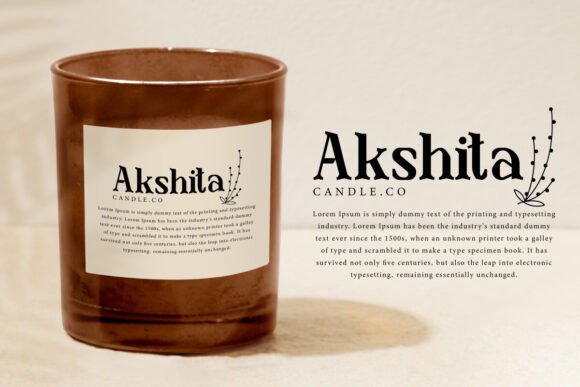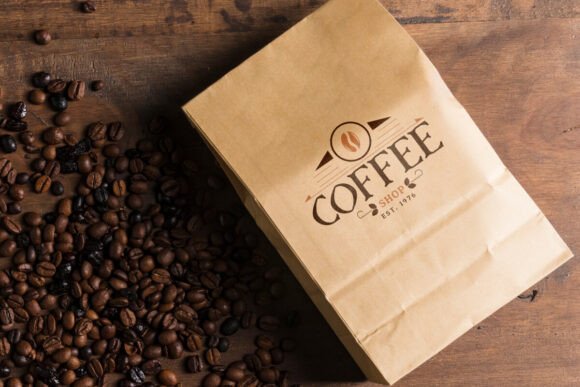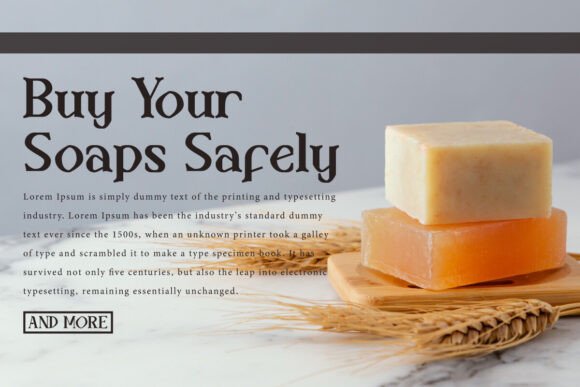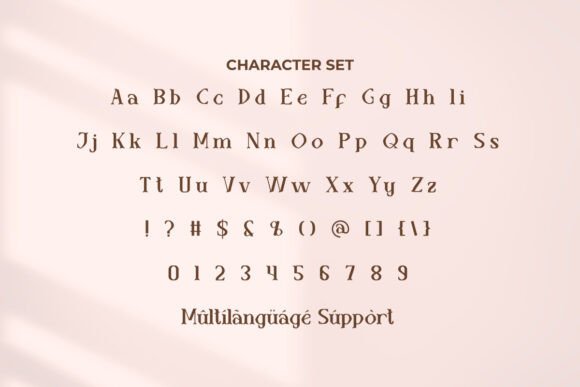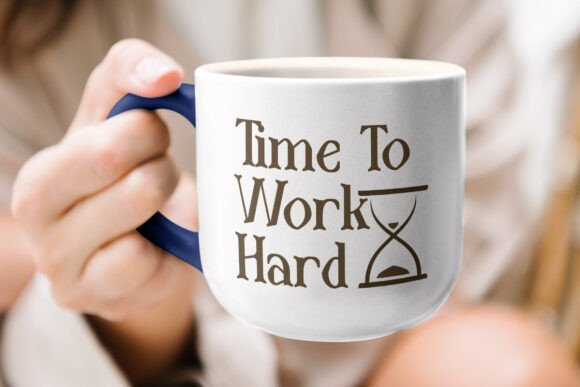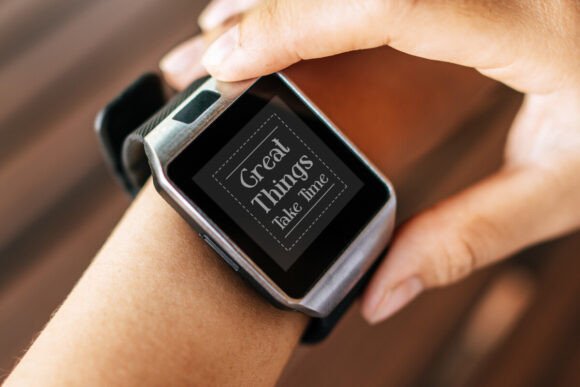
Introducing Blocking Time Font: The Vintage Old Stone Serif Font
Are you looking for a unique font that can add a touch of elegance and sophistication to your designs? Look no further than Blocking Time Font, a vintage old stone serif font that is inspired by the stone structures of the past. This font is perfect for designers and crafters who want to add a touch of classic charm to their work.
What is Blocking Time Font?
Blocking Time Font is a serif font that is designed to resemble the stone structures of ancient times. The font is characterized by its bold, sturdy lines and classic serif details, which give it a timeless and elegant look. The font is perfect for use in a variety of industries, including accessories, architect, ceramic engraving, clothing brands, coffee brewers, events or festivals, fashion designers, handicrafts, homeware, movie, printing, publishing, skincare, writer, and many more.
Unique Features of Blocking Time Font
So, what makes Blocking Time Font so unique? Here are just a few of its standout features:
- Vintage Inspiration: Blocking Time Font is inspired by the stone structures of the past, giving it a unique and classic look.
- Serif Details: The font features classic serif details that add to its elegance and sophistication.
- Bold and Sturdy Lines: The font’s bold and sturdy lines make it perfect for use in a variety of applications, from headlines to body text.
- Versatile: Blocking Time Font is versatile and can be used in a wide range of industries and applications.
Industries That Can Benefit from Blocking Time Font
Blocking Time Font is a versatile font that can be used in a wide range of industries, including:
- Accessories: Add a touch of elegance to your accessory designs with Blocking Time Font.
- Architect: Use Blocking Time Font to create stunning architectural designs that evoke a sense of classic sophistication.
- Ceramic Engraving: Blocking Time Font is perfect for use in ceramic engraving, adding a touch of classic charm to your designs.
- Clothing Brands: Use Blocking Time Font to create stylish and sophisticated clothing designs.
- Coffee Brewers: Add a touch of elegance to your coffee brewer designs with Blocking Time Font.
- Events or Festivals: Use Blocking Time Font to create stunning event and festival designs that evoke a sense of classic charm.
- Fashion Designers: Blocking Time Font is perfect for use in fashion design, adding a touch of sophistication and elegance to your designs.
- Handicrafts: Use Blocking Time Font to create beautiful and unique handicraft designs.
- Homeware: Add a touch of classic charm to your homeware designs with Blocking Time Font.
- Movie: Use Blocking Time Font to create stunning movie titles and credits that evoke a sense of classic sophistication.
- Printing: Blocking Time Font is perfect for use in printing, adding a touch of elegance and sophistication to your designs.
- Publishing: Use Blocking Time Font to create stunning book covers and interior designs that evoke a sense of classic charm.
- Skincare: Add a touch of elegance to your skincare designs with Blocking Time Font.
- Writer: Use Blocking Time Font to create stunning writer portfolios and book covers that evoke a sense of classic sophistication.
Why Choose Blocking Time Font?
So, why choose Blocking Time Font for your next design project? Here are just a few reasons:
- Unique and Classic Look: Blocking Time Font has a unique and classic look that will add a touch of elegance and sophistication to your designs.
- Versatile: The font is versatile and can be used in a wide range of industries and applications.
- Easy to Read: Blocking Time Font is easy to read, making it perfect for use in body text and headlines.
- High-Quality: The font is high-quality and will look great in any design.
In conclusion, Blocking Time Font is a unique and versatile font that is perfect for designers and crafters who want to add a touch of classic charm to their work. With its vintage inspiration, serif details, bold and sturdy lines, and versatility, Blocking Time Font is a great choice for a wide range of industries and applications. So why wait? Download Blocking Time Font today and start creating stunning designs that evoke a sense of classic sophistication.